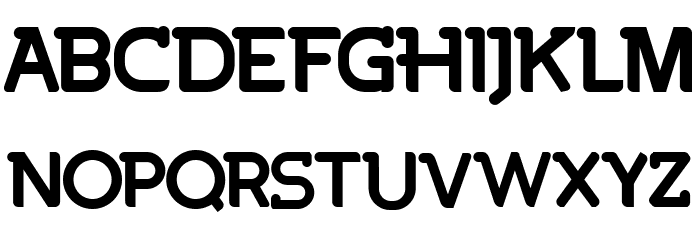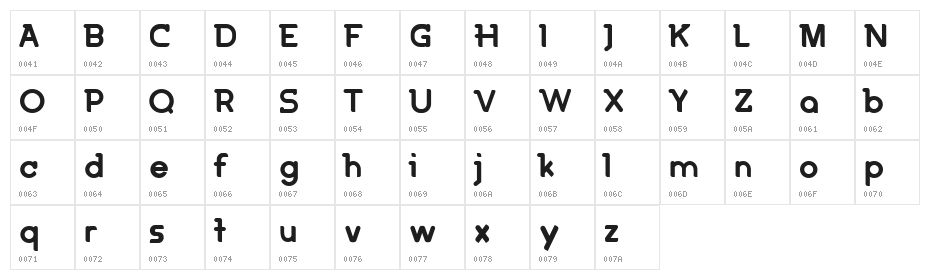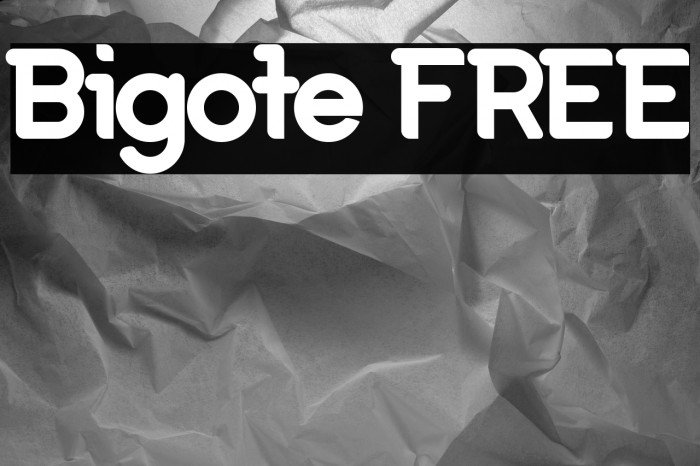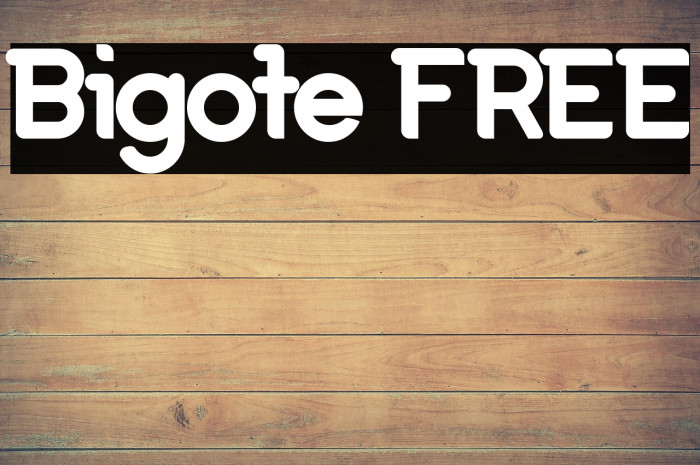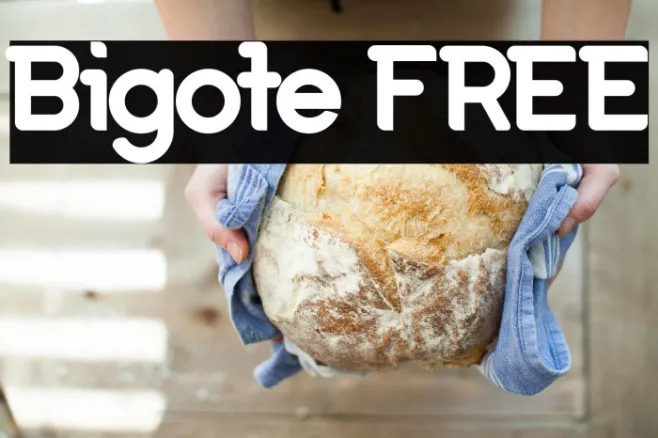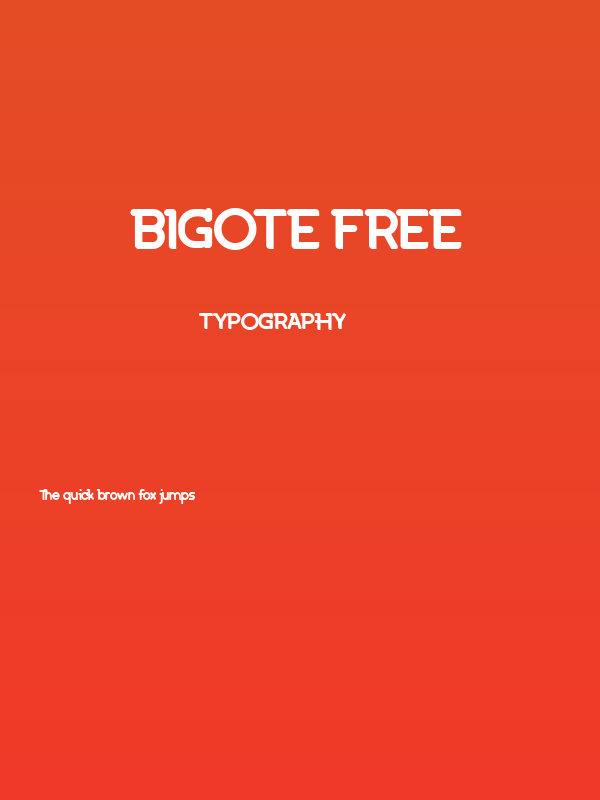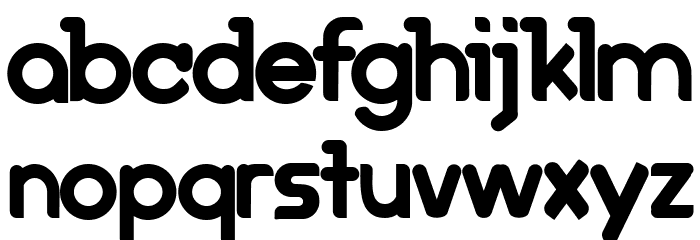
Bigote FREE Font
Bigote FREE Description
This font features a bold and rounded style, characterized by its thick strokes and smooth curves. The uppercase letters maintain a consistent height, while the lowercase letters exhibit a playful and slightly whimsical appearance. The font's design is modern and approachable, with a friendly aesthetic that makes it suitable for a variety of creative applications. The characters are evenly spaced, providing a balanced and harmonious look. The overall style is both contemporary and versatile, making it ideal for projects that require a touch of personality and flair.
| Proposed Projects | Ideal for branding, packaging, children's books, and playful graphic design projects. |